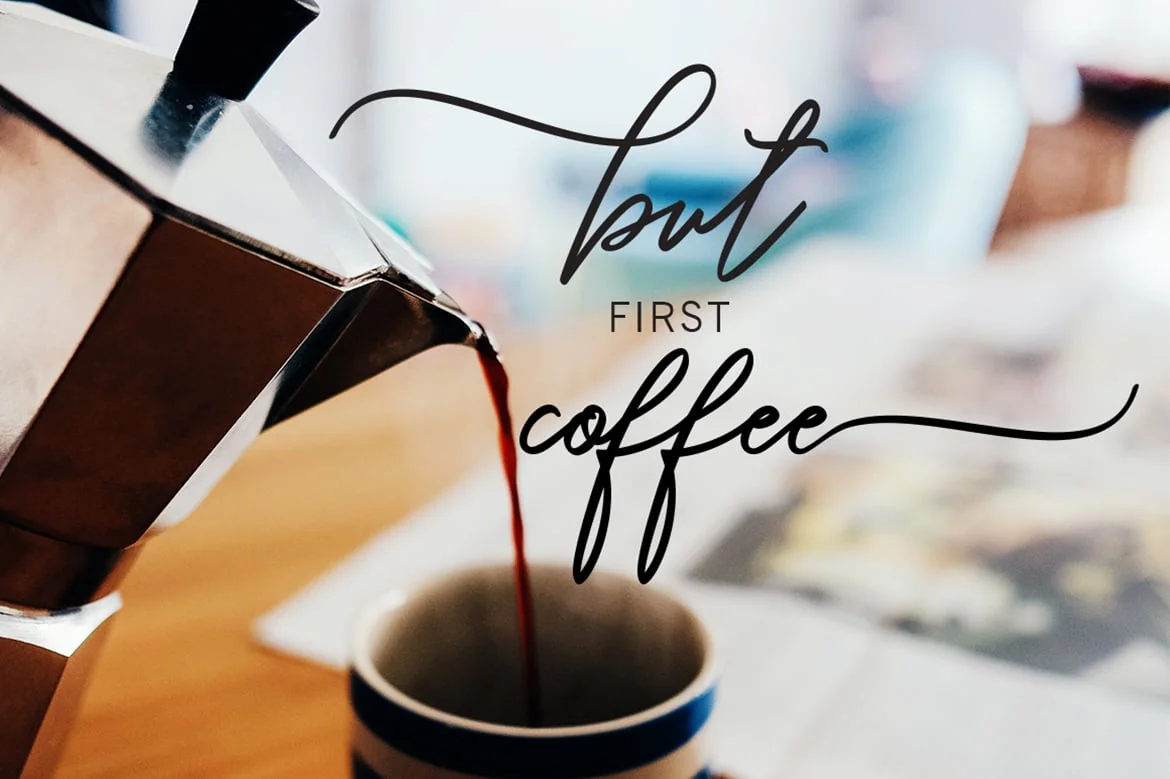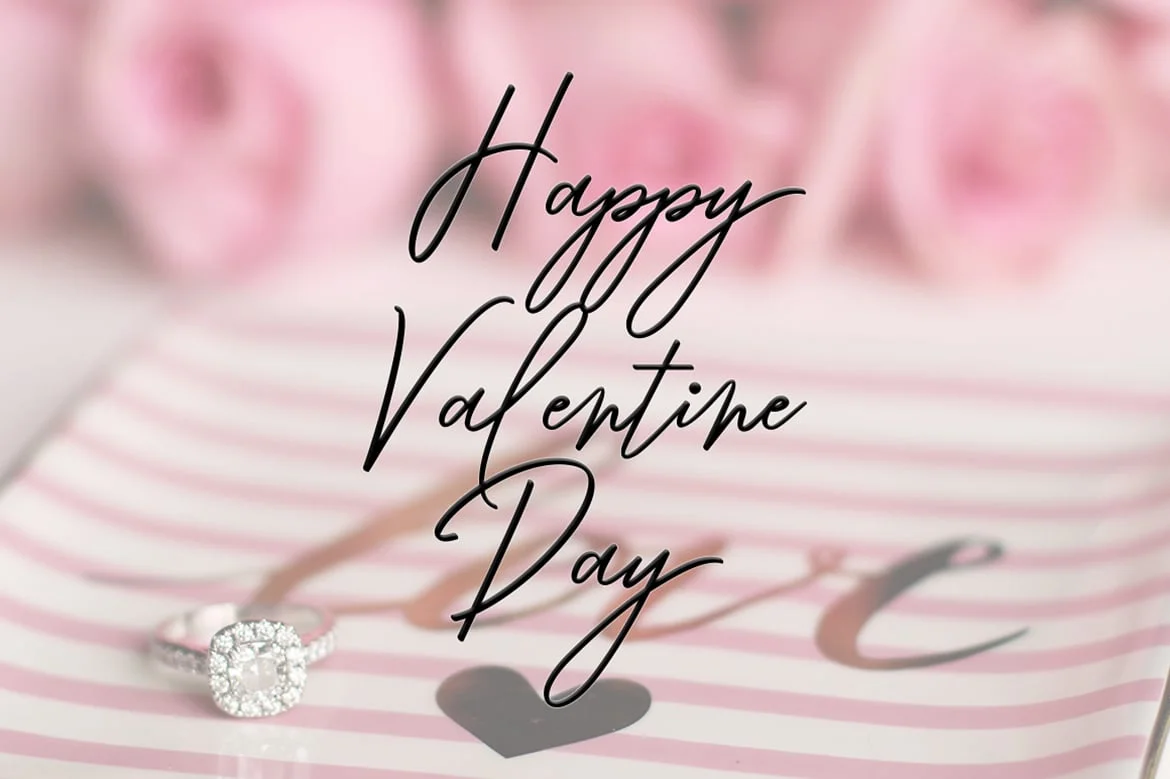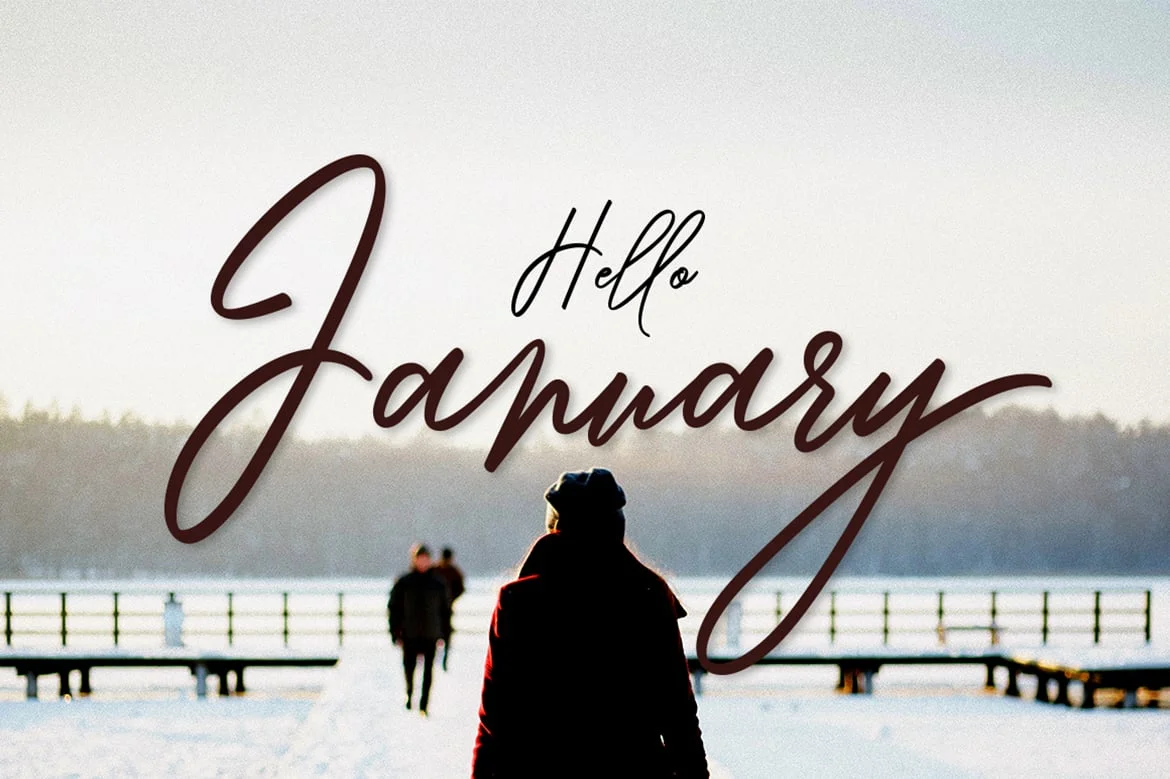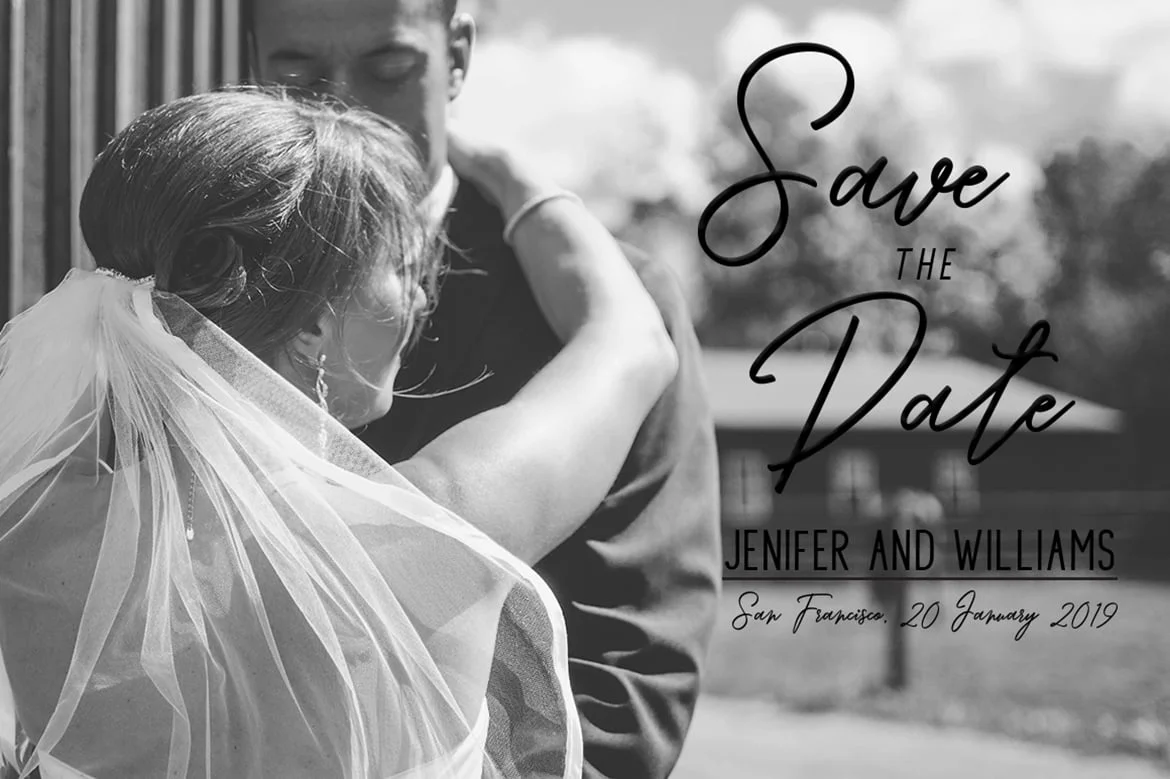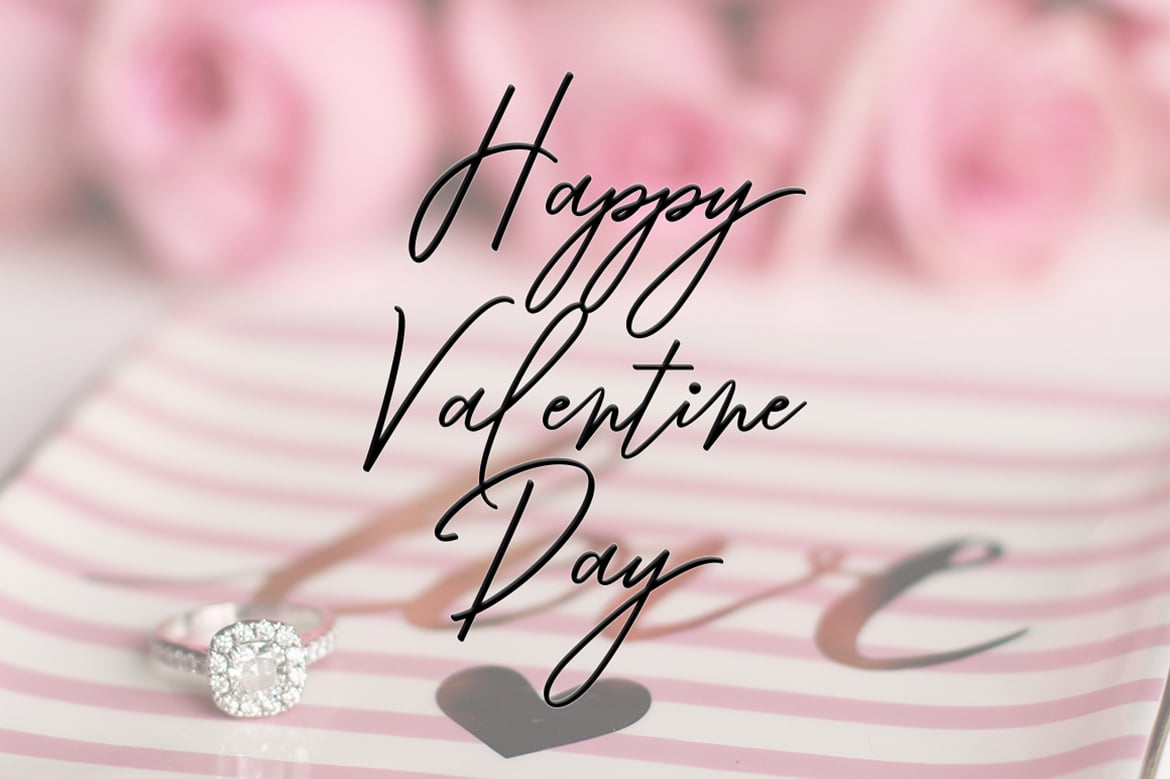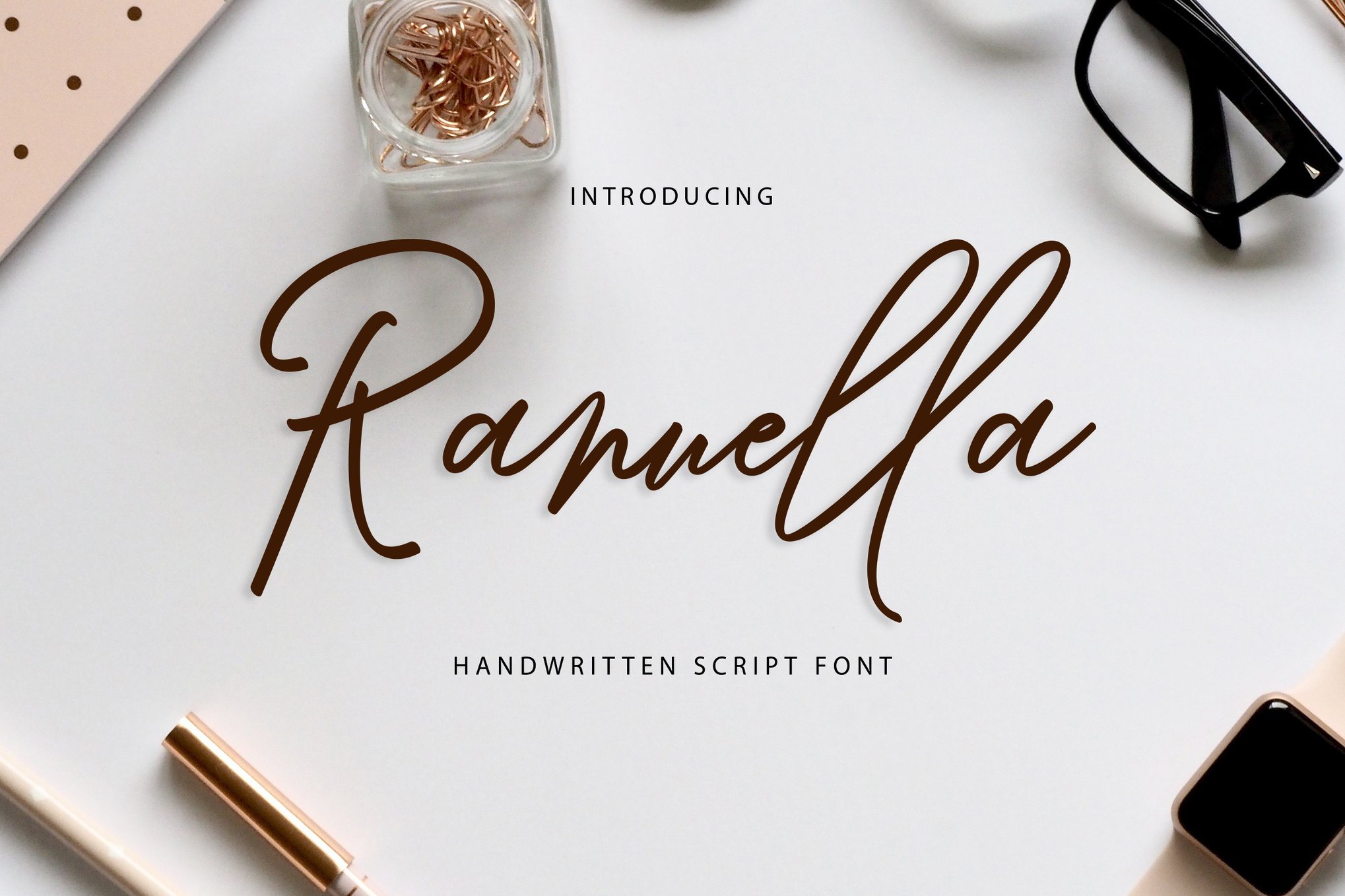
Ranuella Script Font
This Ranuella Script Font is perfect for elegant wedding invitations, luxury beauty branding, feminine fashion logos, romantic greeting cards, sophisticated calligraphy projects, boutique store signage, premium cosmetics packaging, artisan jewelry branding, high-end stationery designs, and graceful social media graphics.
What makes this Ranuella Script Font exciting is its exquisite feminine elegance that captures the flowing beauty of hand-lettered calligraphy. The font features graceful script letterforms with delicate curves and sophisticated flourishes that convey romance, luxury, and refined taste. Its enchanting character and artistic flow make it ideal for brands seeking to communicate elegance, femininity, and premium quality in luxury and lifestyle markets.
The Ranuella Script Font family includes regular and bold weights with decorative swashes, stylistic alternates, and ornamental ligatures. This comprehensive elegant script font family provides designers with artistic flexibility to create sophisticated typographic compositions while maintaining the graceful character essential for luxury and feminine brand communications.
Luxury brands and wedding professionals consistently choose Ranuella Script Font for projects requiring sophisticated elegance and romantic appeal. This font's distinctive graceful character perfectly captures the refined beauty and feminine sophistication that resonate with audiences who appreciate luxury aesthetics and romantic design sensibilities.
The artistic construction of Ranuella Script Font showcases fluid letterforms with carefully crafted connections and elegant proportions that ensure beautiful text flow. Its sophisticated details and romantic flourishes create memorable brand impressions while maintaining the legibility necessary for effective luxury brand communication and elegant design applications.
Professional designers appreciate how Ranuella Script Font brings immediate sophistication and feminine charm to brand communications. The font's elegant nature allows organizations to communicate luxury and romance while maintaining the artistic quality necessary for effective positioning in premium beauty, fashion, and lifestyle markets.
The timeless appeal of Ranuella Script Font makes it particularly effective for brands emphasizing elegance, romance, and feminine sophistication. Its graceful character resonates strongly with audiences who appreciate refined aesthetics, luxury experiences, and brands that celebrate feminine beauty and elegant craftsmanship.
Whether creating invitations for exclusive events or developing packaging for premium beauty products, Ranuella Script Font provides the elegant typographic foundation that luxury brands need to communicate their sophisticated charm, romantic appeal, and the refined elegance that defines premium feminine aesthetics and luxury lifestyle experiences.